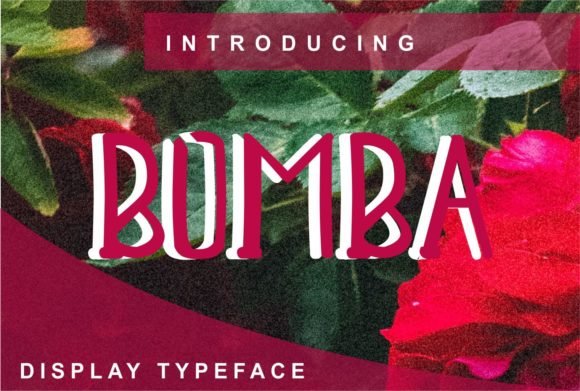
Unleash Your Creativity with Bomba Font
Remember that moment when a new font suddenly sparks an idea, and your design project comes together in an instant? It’s like the universe aligned the perfect combination of typography and creativity. For designers, discovering the perfect font can be a game-changer.
Enter Bomba Font, a clean and adaptable display font that’s ready to elevate your designs. Whether you’re working on a bold logo, a striking headline, or a captivating title, Bomba Font has the potential to be a wonderful asset to your font library.
With Bomba Font, you’ll find a versatile tool that’s perfect for any creative project. Its clean lines, elegant curves, and modern feel make it a valuable addition to any designer’s toolkit, allowing you to take your designs to the next level.
Bomba Font Key Features
- Font Family: Bomba Font is a sans-serif font family designed for modern and bold typography.
- Character Set: Supports Latin, Cyrillic, and Greek alphabets, making it a versatile font for international use.
- Font Size: Available in 5 font weights (Thin, Light, Regular, Medium, and Bold) to cater to various design needs.
- Unique Characteristics: Bomba Font features a unique blend of modern and industrial elements, making it perfect for bold and eye-catching designs.
Bomba Font Review
Overall, I think the Bomba Font is a decent choice for a display font. Here are a few things that work well:
- ✨ Unique and bold design: The Bomba Font has a distinct and eye-catching design that can grab attention.
- ✨ High contrast: The font has high contrast between the thick and thin lines, making it easy to read.
- ✨ Wide range of languages: The font supports a wide range of languages, making it a good choice for international projects.
- ⚠️ Limited character set: The font only includes a limited character set, which may not be suitable for projects that require a wide range of special characters.
- ⚠️ Not ideal for body text: The font is not suitable for body text due to its bold and condensed design.
- ⚠️ May not be suitable for small text sizes: The font may become difficult to read at small text sizes due to its condensed design.
Overall, I would recommend the Bomba Font for projects that require a bold and eye-catching display font, such as headings, titles, and other display text. However, it may not be the best choice for body text or projects that require a wide range of special characters.
For the best results, use the Bomba font in bold or italic styles to add emphasis to your text.
Experiment with different font sizes and combinations to create a visually appealing design.
Use the Bomba font in conjunction with other fonts to create a unique and modern look.
The Bomba font is ideal for:
Modern branding and logos